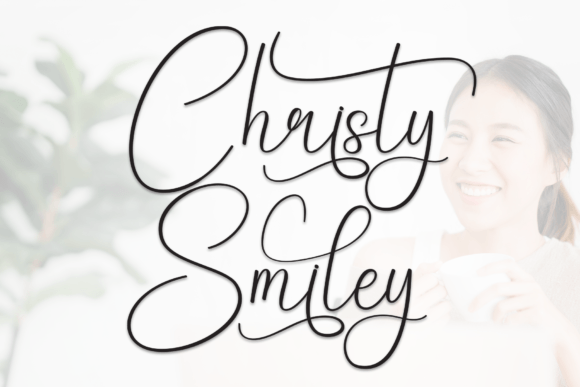
Introducing Christy Smiley Font: The Perfect Casual Handwritten Font for Your Designs
Are you looking for a font that can add a relaxed and friendly vibe to your designs? Look no further than Christy Smiley Font! This casual handwritten font is perfect for personal projects, social media, and invitations, bringing an effortless and charming touch to any design. In this article, we’ll dive into the features and benefits of Christy Smiley Font, and explore how it can elevate your designs.
What is Christy Smiley Font?
Christy Smiley Font is a casual handwritten font that captures the essence of a relaxed and friendly vibe. Its natural, flowing strokes give it a unique and authentic feel, making it perfect for designs that require a personal touch. The font’s easygoing style adds warmth and authenticity, making it ideal for a wide range of design projects.
Key Features of Christy Smiley Font
- Casual and Handwritten: Christy Smiley Font has a casual and handwritten feel, making it perfect for designs that require a personal touch.
- Natural and Flowing Strokes: The font’s natural and flowing strokes give it a unique and authentic feel.
- Relaxed and Friendly Vibe: Christy Smiley Font captures the essence of a relaxed and friendly vibe, making it perfect for personal projects and social media.
- Effortless and Charming: The font’s effortless and charming style adds a touch of warmth and authenticity to any design.
Benefits of Using Christy Smiley Font
So, why should you use Christy Smiley Font in your designs? Here are just a few benefits:
- Perfect for Personal Projects: Christy Smiley Font is ideal for personal projects, such as scrapbooking, journaling, and crafting.
- Great for Social Media: The font’s casual and friendly vibe makes it perfect for social media graphics, such as Instagram posts and Facebook updates.
- Ideal for Invitations: Christy Smiley Font is perfect for invitations, such as birthday party invites, baby showers, and wedding announcements.
- Adds Warmth and Authenticity: The font’s easygoing style adds warmth and authenticity to any design, making it perfect for brands that want to connect with their audience.
How to Use Christy Smiley Font in Your Designs
Using Christy Smiley Font in your designs is easy! Here are a few tips:
- Pair it with Other Fonts: Christy Smiley Font pairs well with other fonts, such as sans-serif fonts and script fonts.
- Use it for Headings and Body Text: The font is perfect for both headings and body text, making it a versatile addition to your design toolkit.
- Experiment with Colors: Christy Smiley Font looks great in a variety of colors, from bold and bright to soft and pastel.
In conclusion, Christy Smiley Font is a casual handwritten font that captures a relaxed and friendly vibe with its natural, flowing strokes. Ideal for personal projects, social media, and invitations, it brings an effortless and charming touch to any design. With its easygoing style and warm authenticity, Christy Smiley Font is the perfect addition to your design toolkit. So why not give it a try and see how it can elevate your designs?
Whether you’re a designer, crafter, or DIY enthusiast, Christy Smiley Font is a great choice for any project that requires a personal touch. So go ahead, get creative, and make your designs shine with Christy Smiley Font!